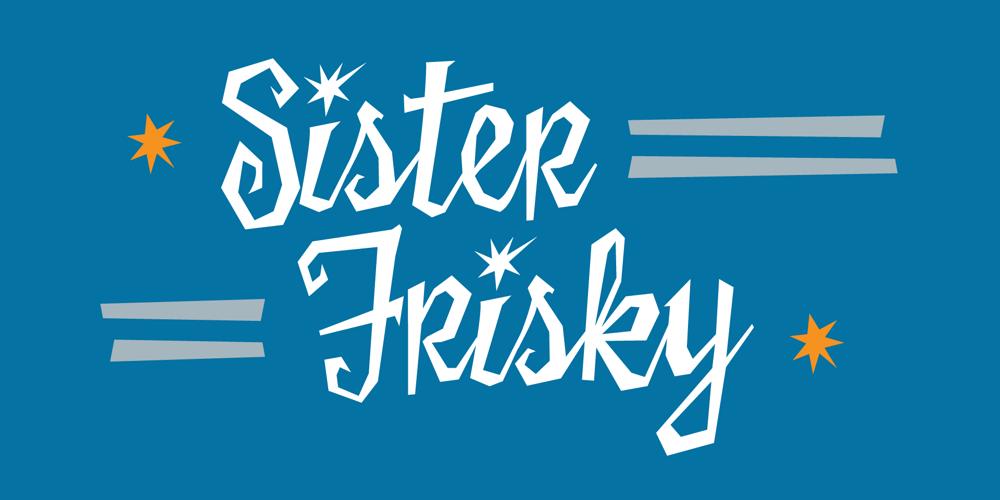
Sister Frisky Font Family was designed by Chank Diesel and published by Chank. Sister Frisky contains 1 styles and family package options. Sister Frisky jumps up and down and drinks a lot of coffee. There are no two parallel lines in this font, and no right angles. Here’s a flashy, dancing, retro script with an sharp edge and clear wit!